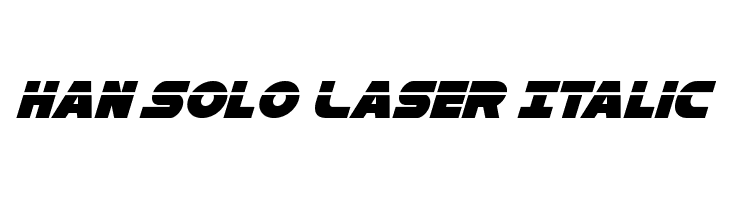
A bold, condensed, and italicized font with a futuristic style.
A bold, futuristic font with geometric shapes and a sci-fi aesthetic.
A bold, expanded italic font with high contrast and modern appeal.
A bold, futuristic font with horizontal line gradients creating a dynamic effect.
A bold, italicized font with a gradient effect and a modern, dynamic style.
A bold, geometric font with a halftone effect, perfect for modern designs.
A bold, italicized font with a halftone effect, perfect for modern and dynamic designs.
A bold, italic font with a dynamic and modern style.
A bold, geometric font with a futuristic, sci-fi style.
A bold, futuristic italic font with sharp, angular edges and a dynamic style.